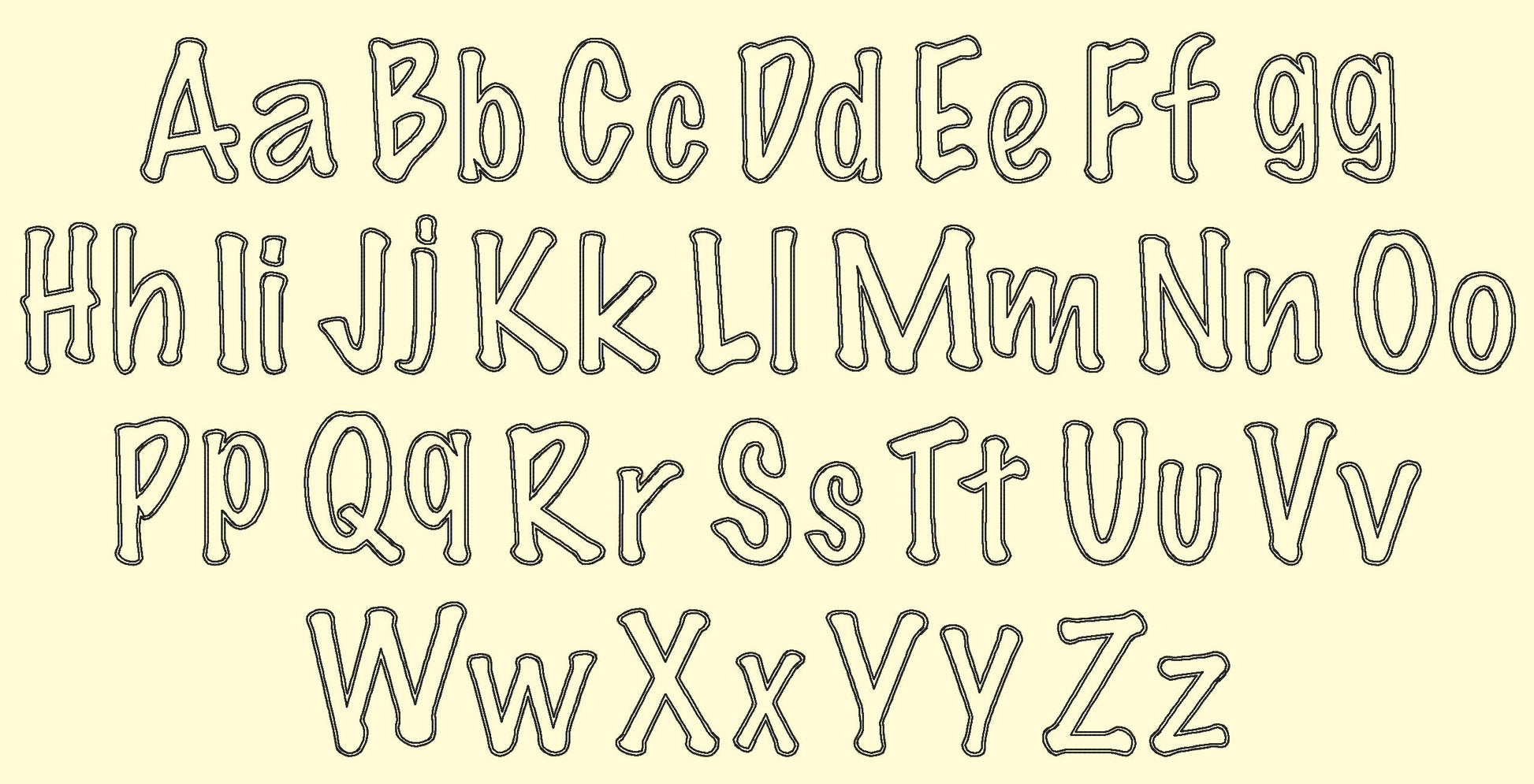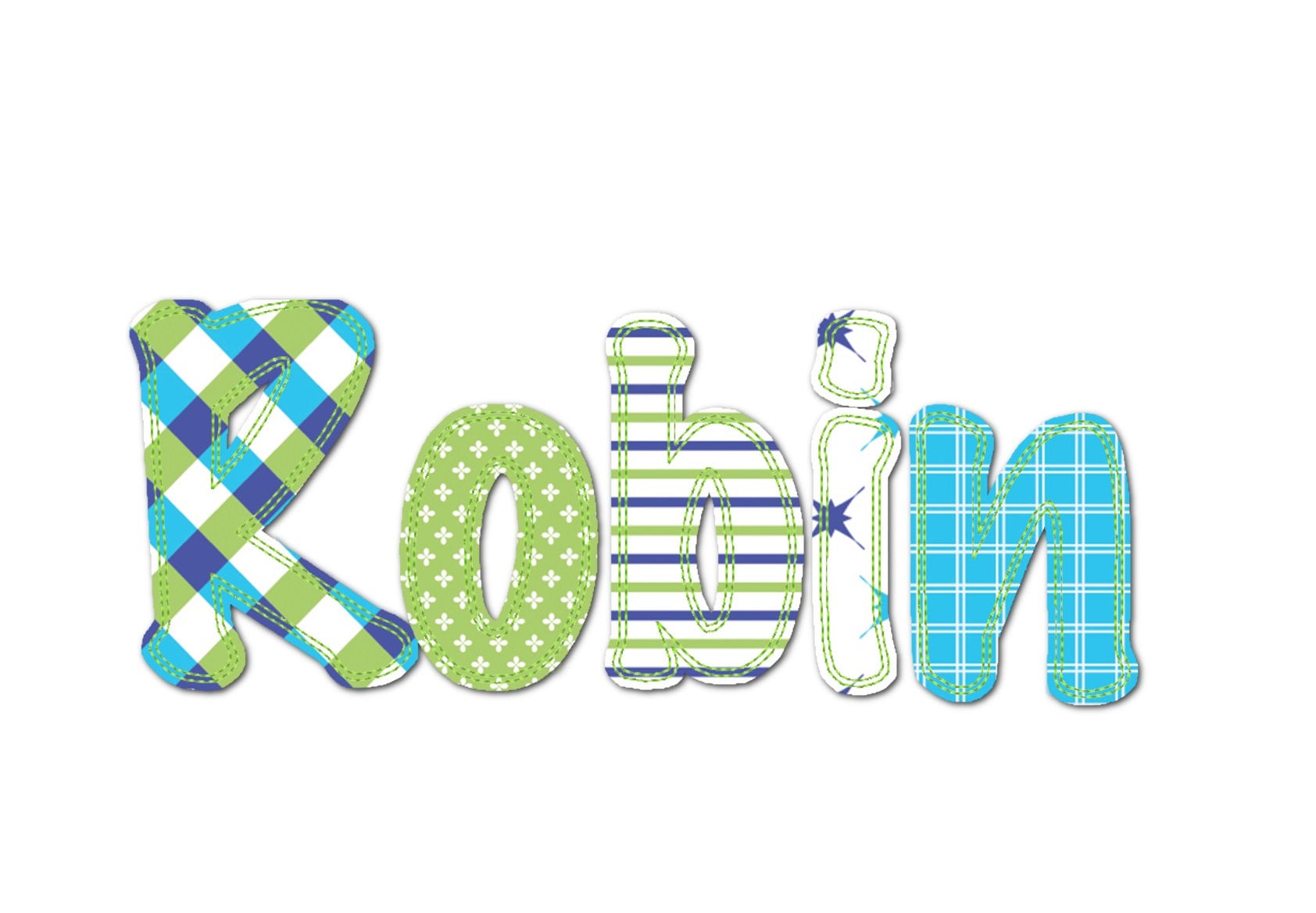
Or click to open the linkRobin, a kids' applique font with free raggedy edges. Fun for names on shirts, bags, pillows and quilts.
Uppercase and lowercase letters, numbers 0 to 9 and punctuation in five sizes: 1.5, 1.9, 2.3, 3 and 3.4 inches. The applique fabric edges are left free for a soft, frayed look.